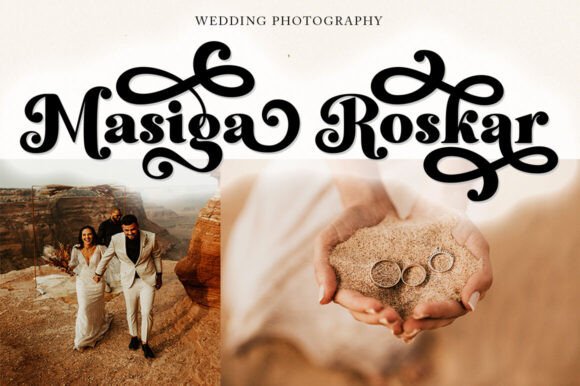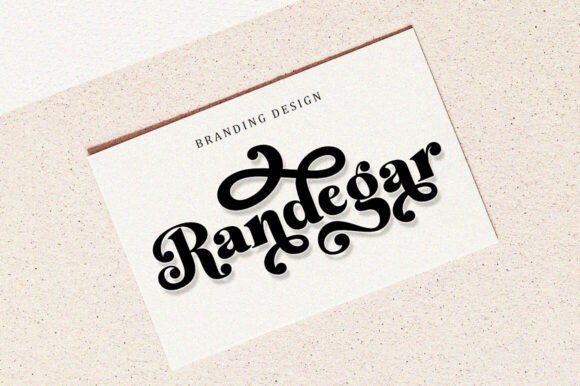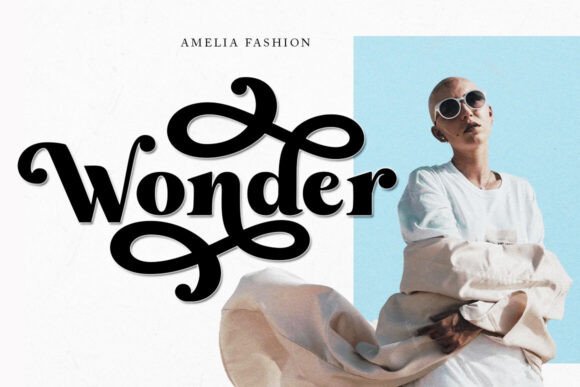
Brighty Dream Font
Brighty Dream is a stunning serif typeface that will make your designs stand out. A great combination of regular and Condensed styles that looks great in both large and small sizes. It also comes with alternates and ligatures to give it an elegant feel while adding a playful touch. Brighty Dream font is a great choice, especially in pop art retro themes and other projects